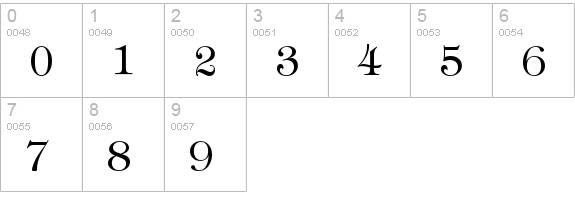
Tiffany Light BT Font Details
Tiffany Light BT is a refined, elegant variant in the Tiffany typeface family \xE2\x80\x94 well suited to elegant body text, refined sub-headings, and luxury branding.
Tiffany Light BT font is a stunning and elegant typeface that exudes sophistication and charm. Its delicate and graceful letterforms make it perfect for a wide range of design projects, from wedding invitations to branding materials. The font showcases a unique blend of classic and modern elements, resulting in a timeless and versatile aesthetic. Its slender strokes and subtle flourishes add a touch of refinement, while its clean and legible design ensures readability across different mediums. One of the best things about Tiffany Light BT font is that it is freely available to download at FontsMarket.com. This means that designers and creatives can easily access and utilize this beautiful font without any financial constraints. Whether you are a professional graphic designer or a hobbyist looking to add a touch of elegance to your personal projects, Tiffany Light BT font offers a high-quality and cost-effective solution. With its extensive character set and multiple language support, this font can be used for a variety of design purposes, making it a valuable asset for any creative endeavor. The versatility of Tiffany Light BT font allows it to seamlessly integrate into both print and digital designs, ensuring that your message is conveyed with style and flair. In addition to its aesthetic appeal, Tiffany Light BT font also offers excellent legibility, making it a practical choice for body text as well as headlines. Its well-balanced proportions and meticulous attention to detail ensure that each letter is visually pleasing and easy to read, even in small sizes or low-resolution displays. Whether you are designing a wedding invitation, a logo, a website, or any other creative project, Tiffany Light BT font is a versatile and reliable choice. Its timeless elegance, impeccable craftsmanship, and free availability on FontsMarket.com make it a must-have font for any designer who values quality and affordability. Download Tiffany Light BT font now and elevate your designs with its exquisite beauty.